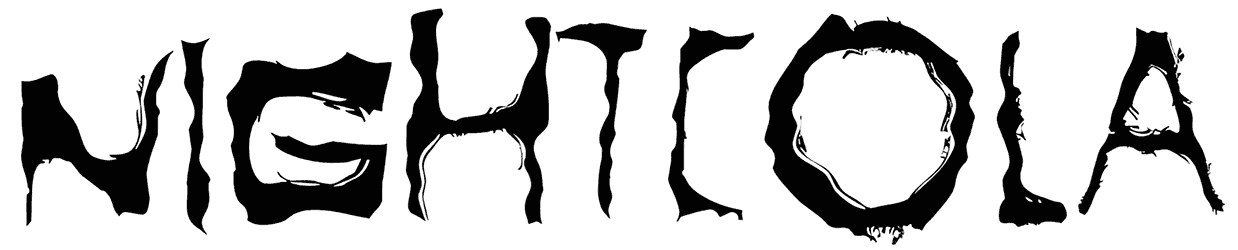
A Good Day To Die Font
If you were looking for a destroy font to show your text-based layout in style, you should go with A Good Day To Die. This case is coming with a combination of thin and bold letters. Apply it to movies, posters, books, and so forth. You can find similar products on our website, check them out right now.
Designed by: Junkohanhero